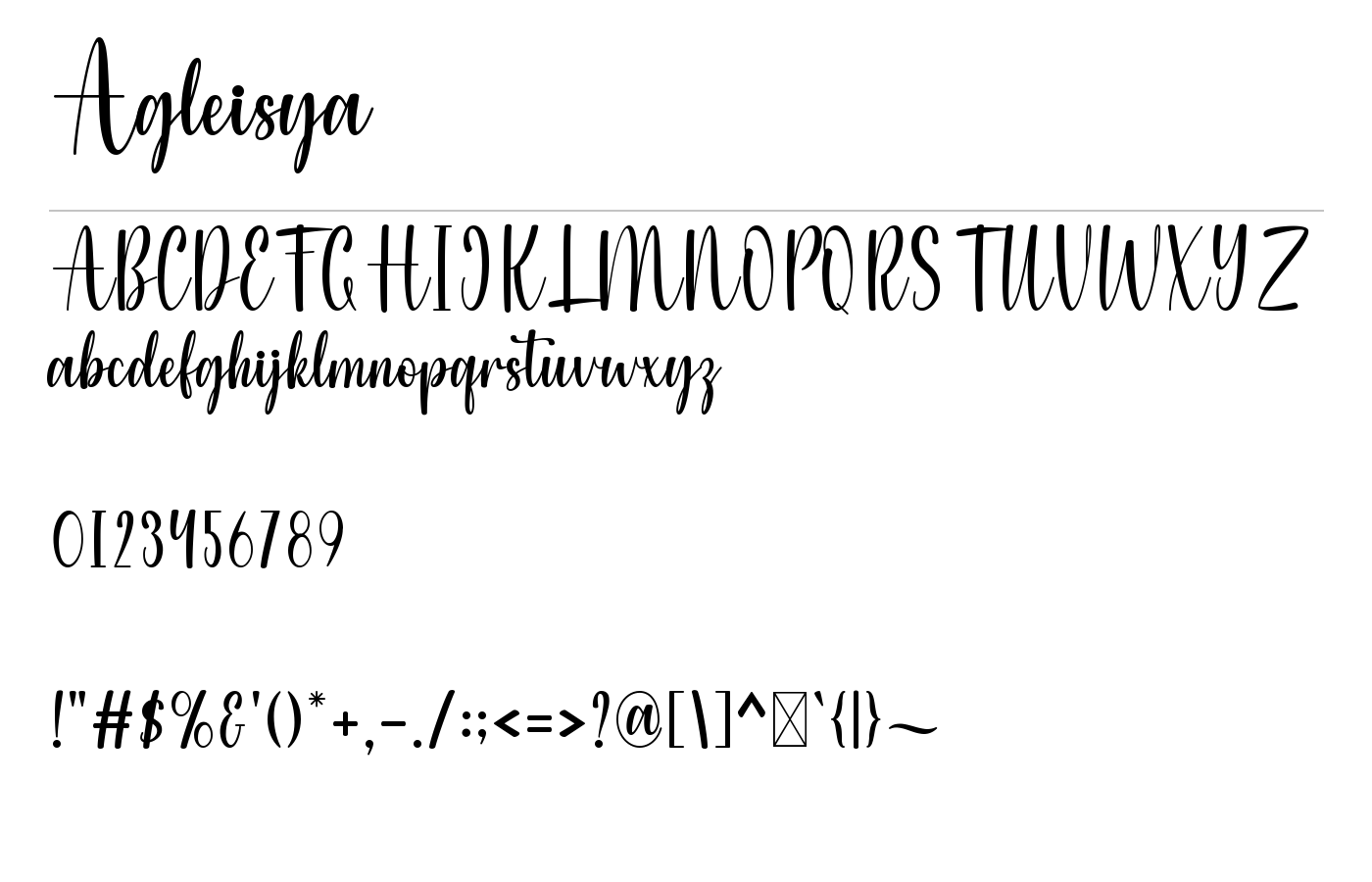
Agleisya is a stylish, handwritten script font with tall, slender letterforms and a playful yet elegant vibe. Its smooth, flowing strokes and moderate contrast make it perfect for adding a personal and sophisticated touch to invitations, branding, and creative projects. This font works beautifully in headlines and decorative text where a chic, modern handwritten feel is desired.
| Font family | Agleisya Font |
| Designer | Wahyu setiyawan |